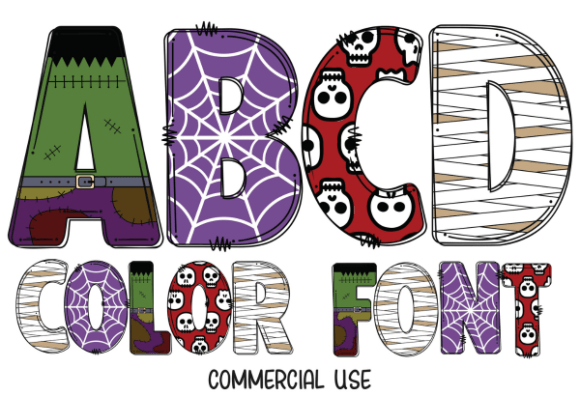
Introducing the Halloween Font, a captivating and colorful addition to your font collection! Created by PX SHOP, this font is not just for Halloween but also for horror and cute-themed projects. With its cute and fun Halloween-styled detailed colored design, this font is sure to bring life to your creative ideas.
Why settle for ordinary when you can make your designs extraordinary? Halloween Font is the perfect way to elevate your projects and make them stand out from the crowd. Its unique and eye-catching style will captivate your audience and leave a lasting impression.
Whether you're designing for Halloween parties, horror-themed events, or simply want to add a touch of cuteness to your work, Halloween Font is incredibly versatile. It adds a playful and whimsical vibe that will instantly grab attention and create a memorable experience for your viewers.